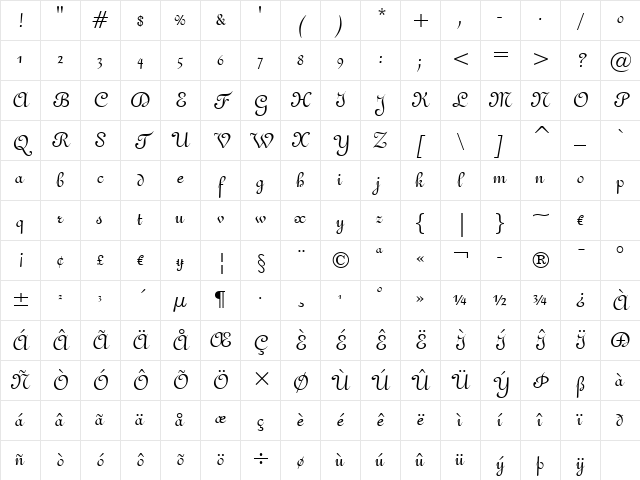
French111 BT Regular
French111 BT Family
Design Context for French111 BT
French111 BT is a composed and adaptable typeface that performs quietly and consistently across a wide range of design contexts.